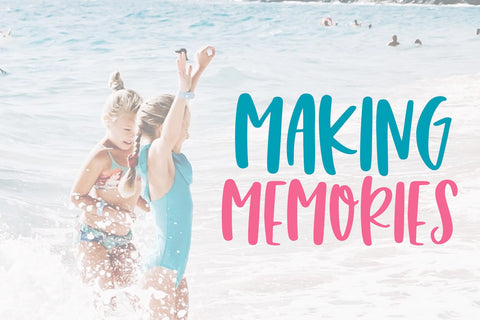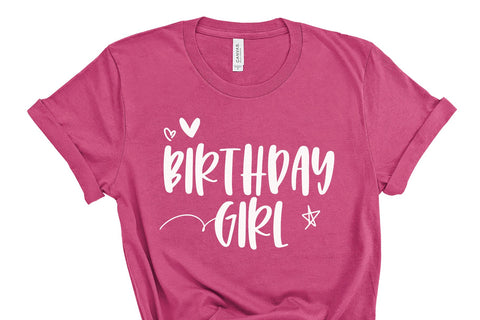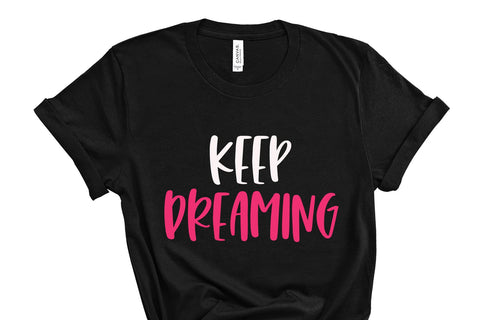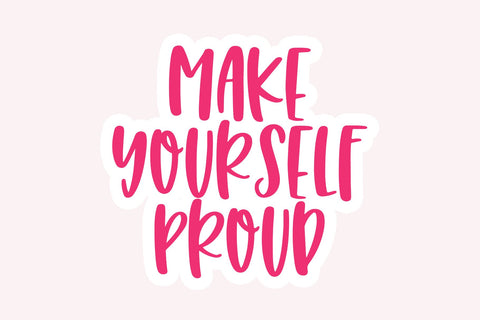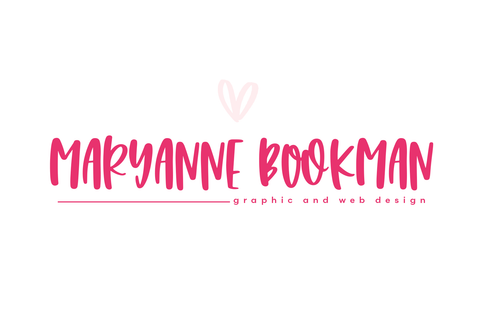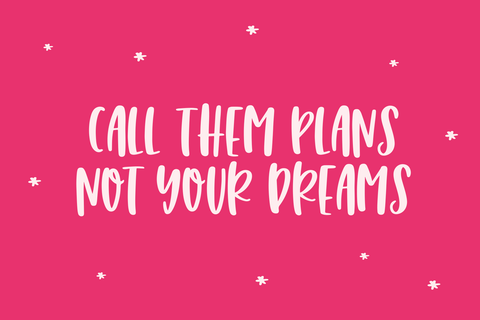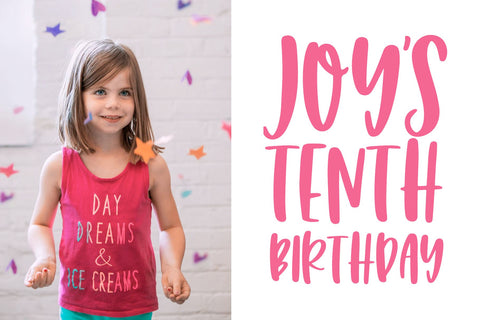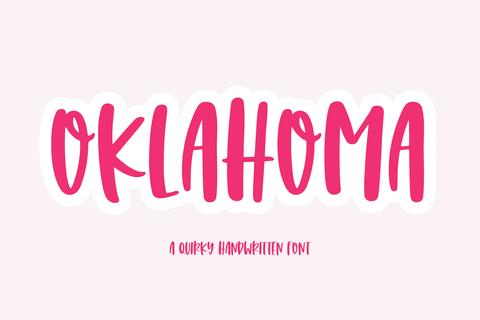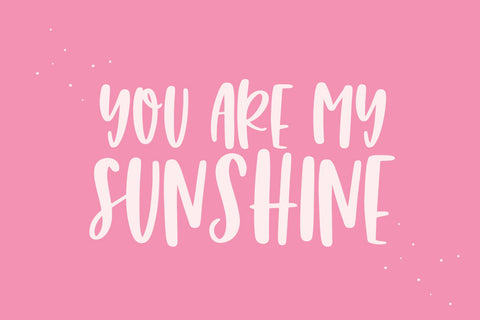
Oklahoma - Quirky Handwritten Font
Oklahoma is a quirky handwritten font!
This is an all caps font.
This font is perfect for quotes, shirt designs, websites, branding, children's designs, svg designs, blogs, logos, invitations and more!
Most accent characters included.